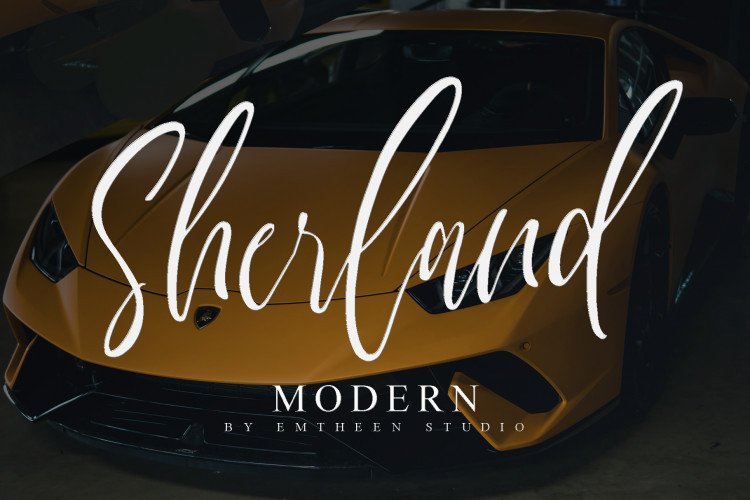
Sherland Script Font Free
Introducing Sherland Font. This is a modern calligraphy font . It is perfect for branding, wedding invites and cards. If you want to stand out then this is the font for you. It is was designed by Emtheen Std.. It’s a script type font that has a thin and high font scipt in each letter, making this font look elegant and modern.
This font is suitable for use as wedding designs, greeting cards, branding, stationery design, social media, branding, watermarks / logos, and everything related to advertising, etc.